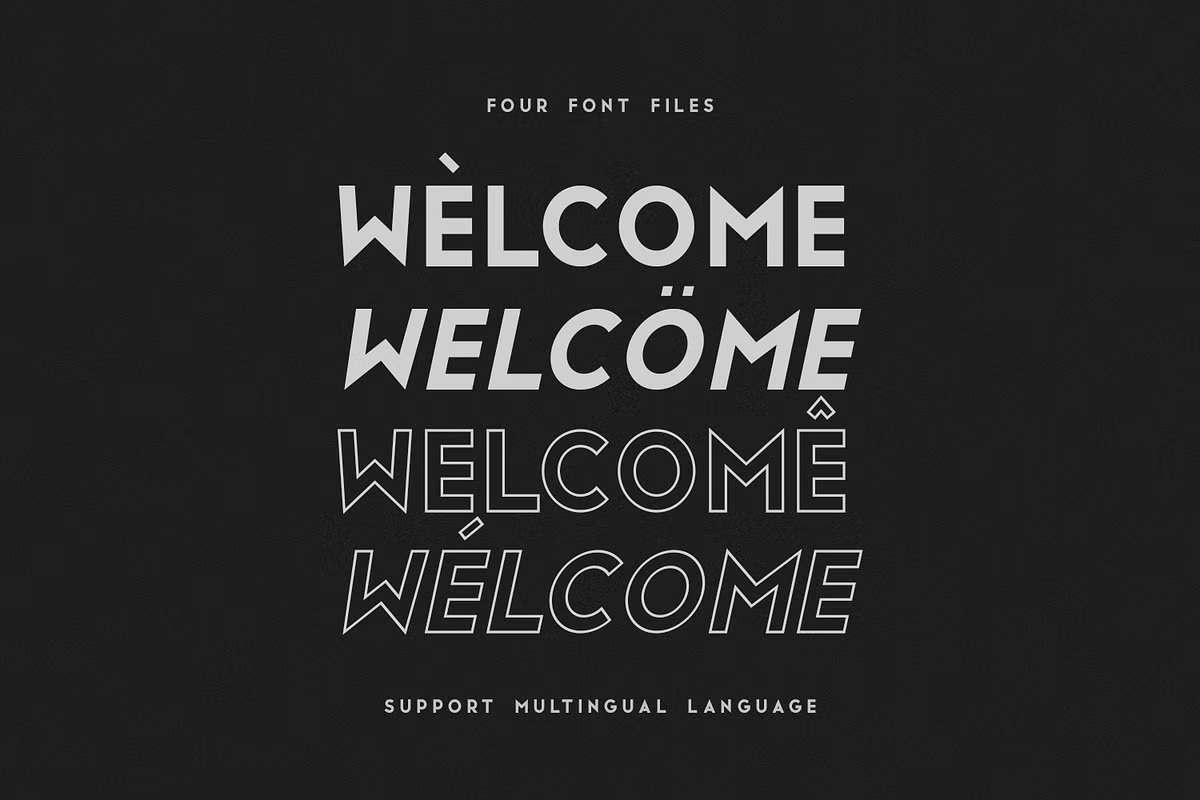
Graphicfresh drew San Marino as a tall, slightly condensed set of capitals with a geometric base. The M has splayed legs, the O is a near circle, and the A has a sharp point. It has the look of the lettering on a 1930s station building, cleaned up for modern use.
The paid version comes in four files: Regular, Italic, Outline and Outline Italic. The “Welcome” slide shows all four stacked, and the outline cuts are useful for layering over the solid version. The figures are large and well spaced. This free download is one OTF file for personal use.
Best uses for San Marino
- City and travel posters
- Streetwear prints
- Café and bar logos
- Architecture studio branding
- Event titles
For body copy, Josefin Sans matches its geometric style. A serif such as Playfair Display gives a classic contrast.
San Marino Sans Serif Font